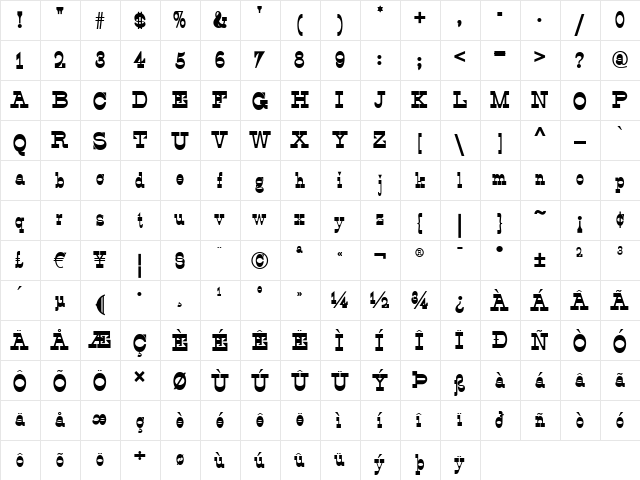
NewBostonWBW Medium
| Foundry | Nick's Fonts |
| Designer | Nick Curtis |
Design Context for NewBostonWBW Typeface
NewBostonWBW takes a measured approach to typography — its balanced proportions and neutral character make it a reliable workhorse for both digital and print work.